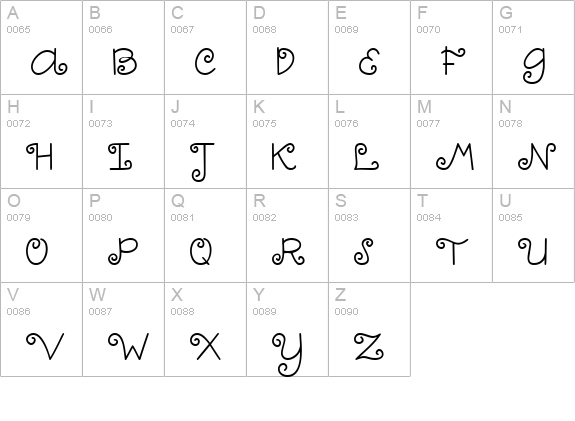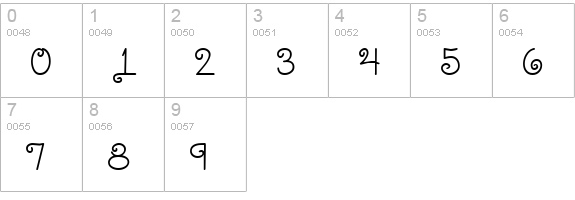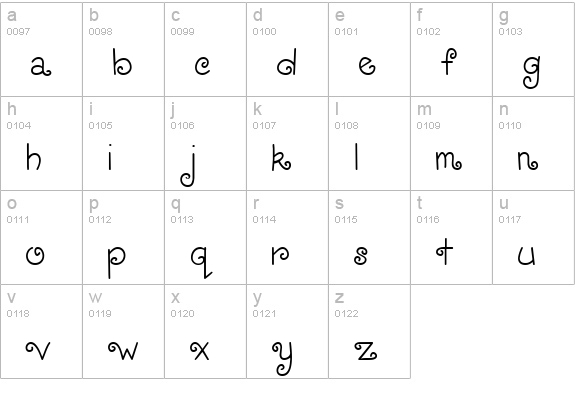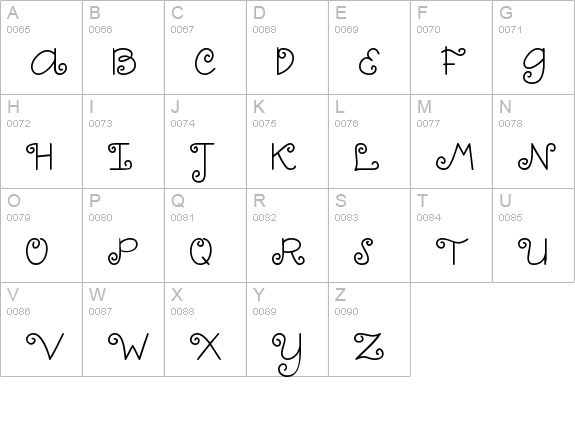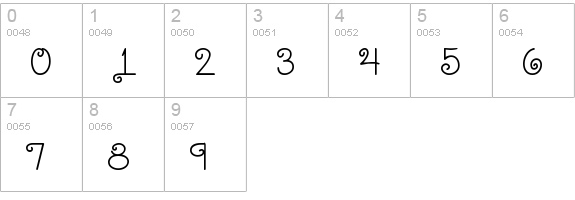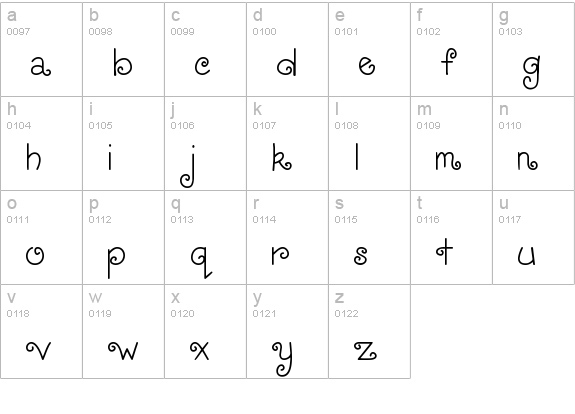
CK Diva Font Details
Introducing CK Diva font, a stylish and elegant typeface designed for those who want to make a statement with their typography. This font features bold and modern letterforms that exude confidence and sophistication. CK Diva is perfect for adding a touch of glamour to any design project, whether it's for branding, advertising, or creative projects. The best part is that CK Diva font is available for free download at FontsMarket.com. You can easily access this stunning font and elevate your designs without breaking the bank. Don't miss out on the opportunity to add CK Diva to your font collection and bring a touch of luxury to your projects. Download it now and start creating beautiful designs with this striking typeface.